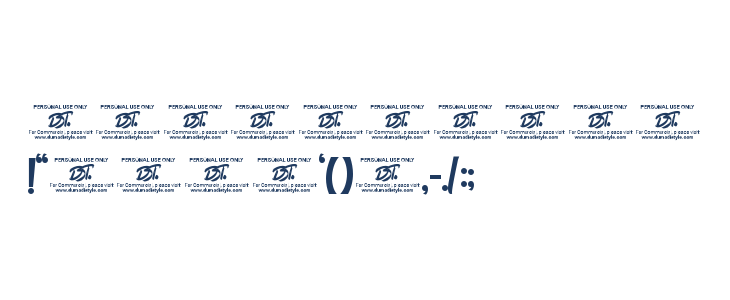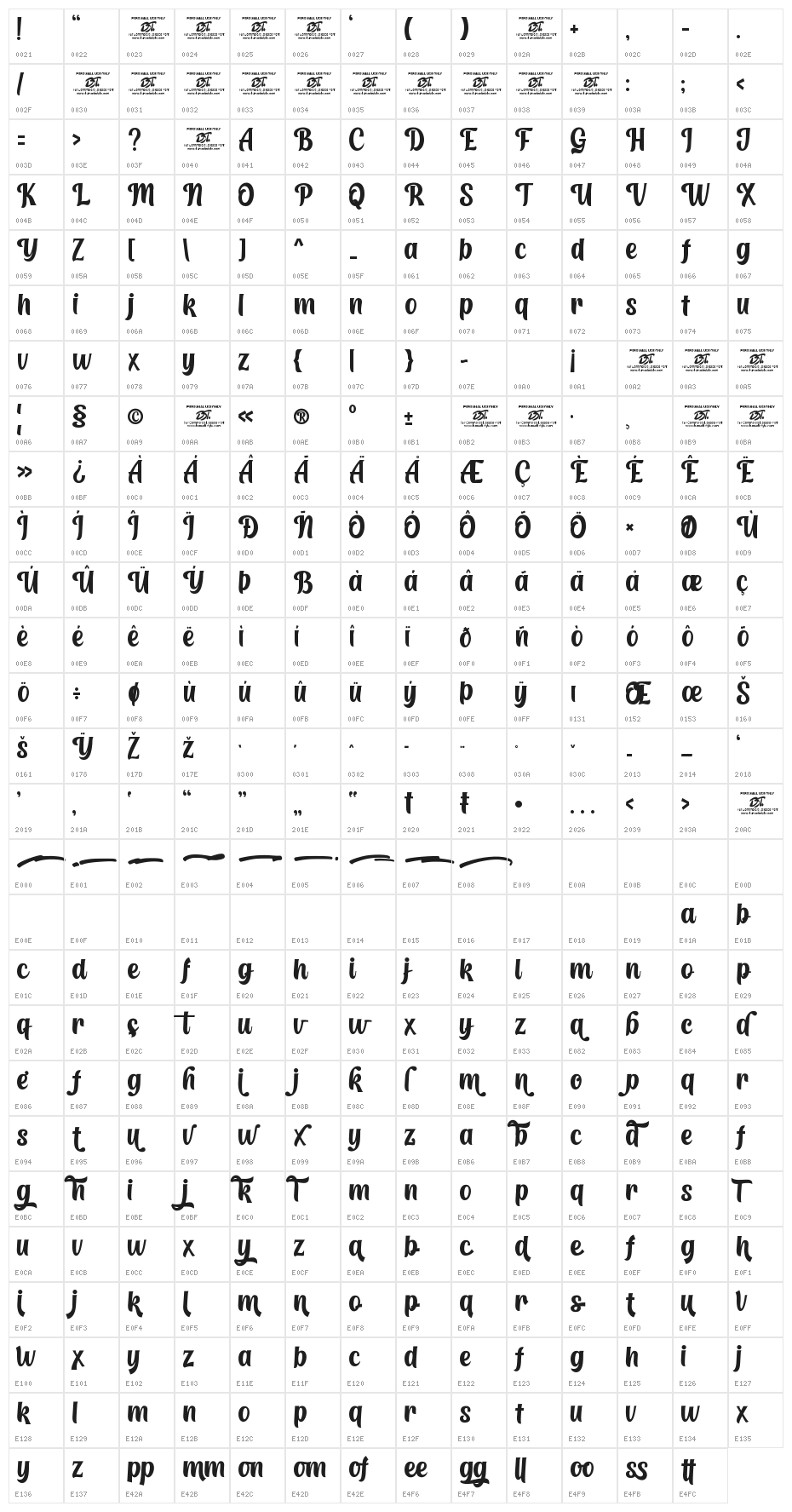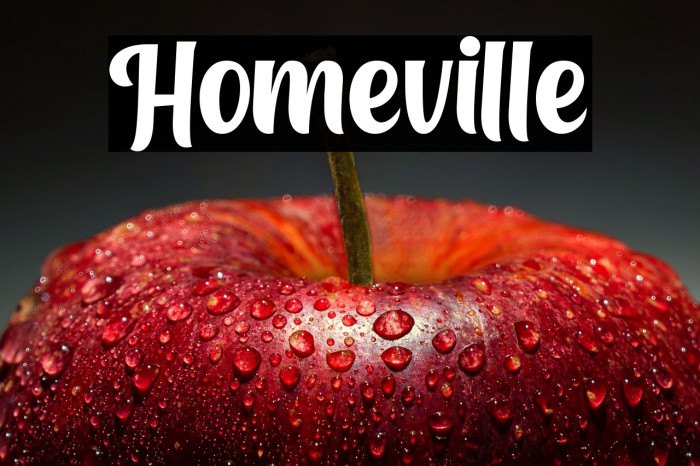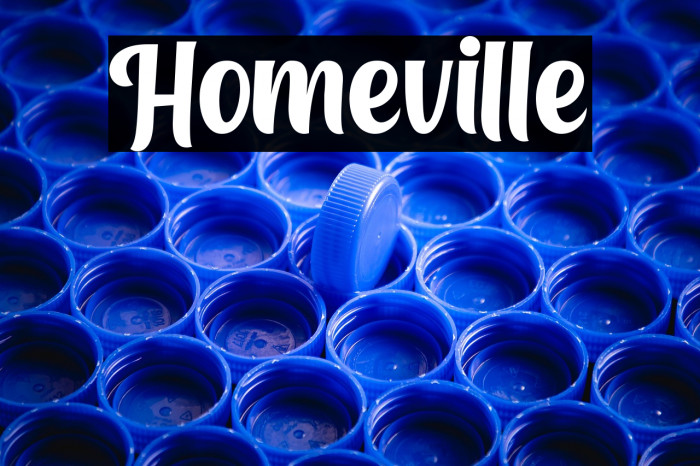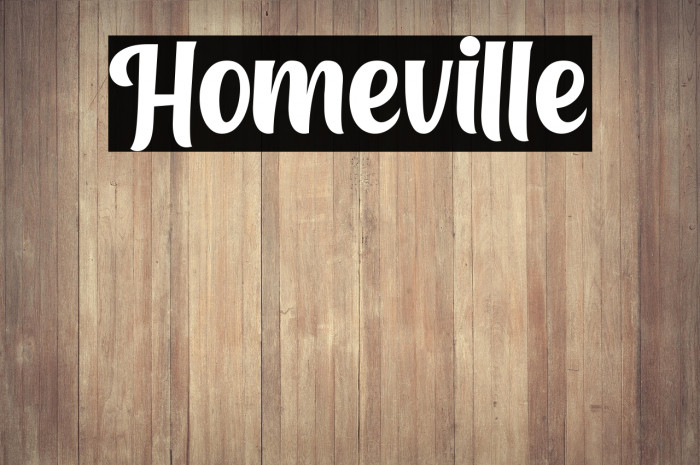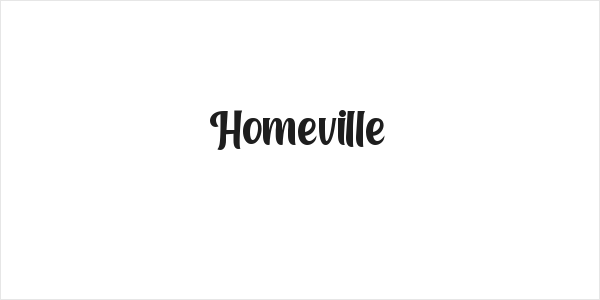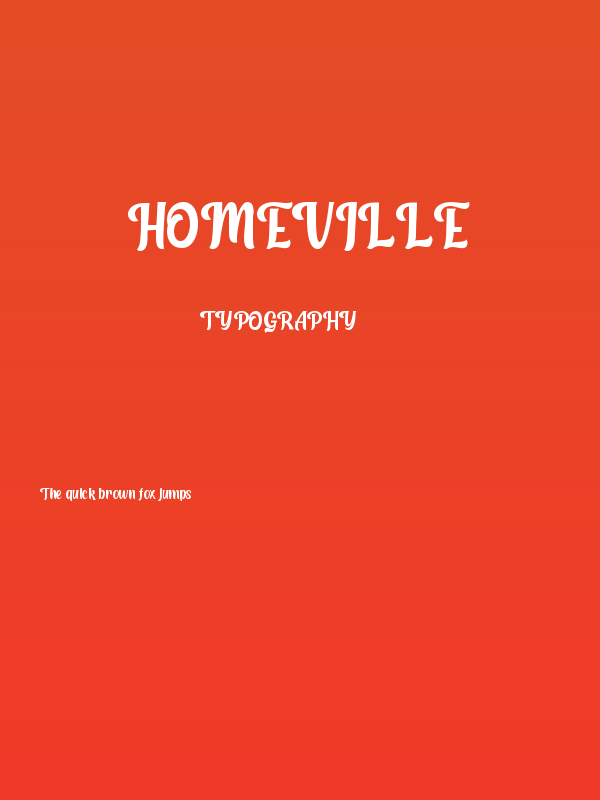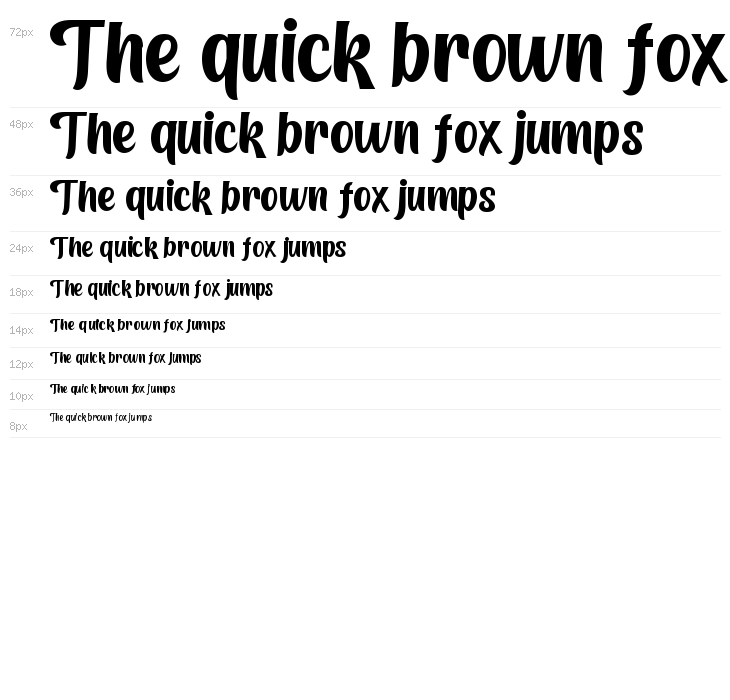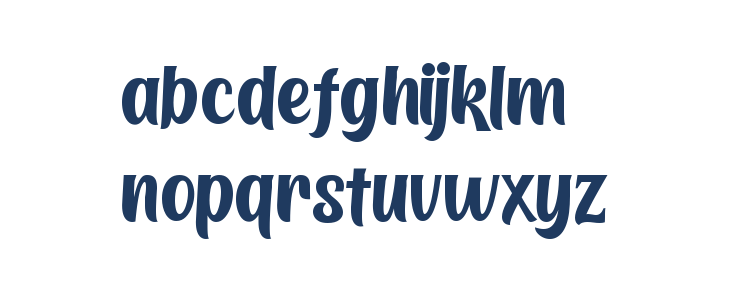
Homeville Font
Homeville Description
This font exhibits a bold and flowing script style, characterized by its smooth, rounded edges and a slight slant that gives it a dynamic and elegant appearance. The uppercase letters are distinct with a consistent stroke width, while the lowercase letters maintain a harmonious balance with slightly exaggerated curves. The overall design is both playful and sophisticated, making it suitable for a variety of creative applications. The font's unique style is accentuated by its moderate contrast in stroke thickness, adding to its readability and visual appeal.
| Proposed Projects | Ideal for branding, invitations, greeting cards, and decorative headlines. |